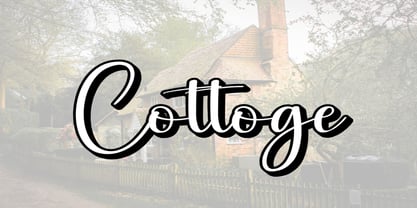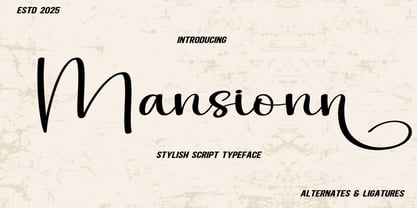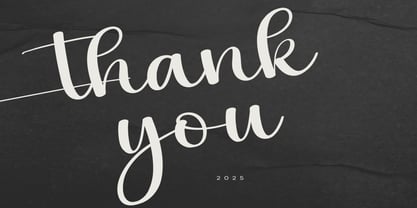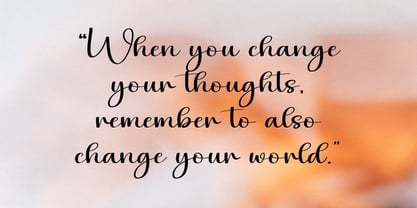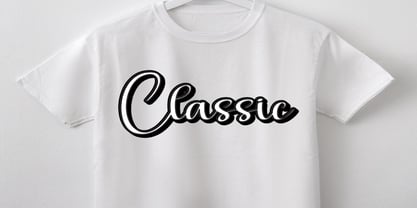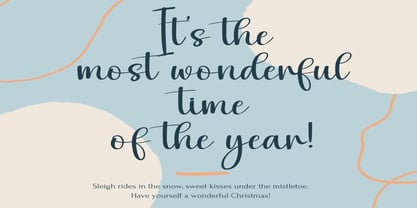
Mansionn
by Dream Font
The Mansionn Font Family was designed by Stefan Pott and published by Dream Font. Mansionn contains 1 styles. More about this family
Mansionn is a stylish and incredibly elegant script font. It looks stunning on wedding invitations, thank you cards, quotes, greeting cards, logos, business cards and every other design which needs a handwritten touch.